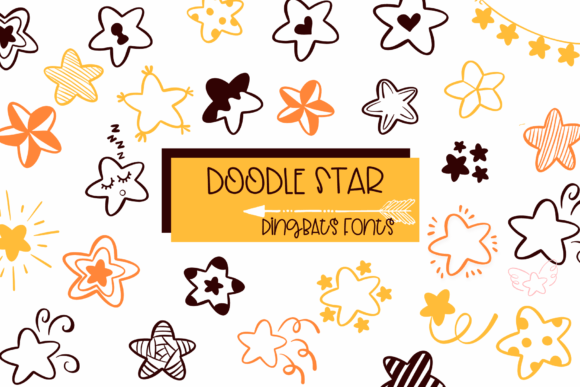
A Spark of Creativity: Unlocking the Magic of Doodle Star Font
Have you ever been stuck in a creative rut, searching for that one thing to bring your project to life? Maybe it’s a font that screams ‘fun,’ a design element that shines bright, or a dash of whimsy that sets your work apart. For designers, finding that perfect element can be the difference between an okay project and an amazing one.
Enter Doodle Star Font, a delightful dingbat font that’s packed with adorable star designs. Each character is a charming star shape, waiting to be used to add a playful touch to your projects. Whether you’re working on a children’s book, a greeting card, or a website, Doodle Star Font is the perfect way to inject some personality and fun into your work.
Doodle Star Font Key Features
- Size: The font family includes a range of weights from Thin to Black, providing flexibility for designers.
- Resolution: Optimized for high-resolution displays, ensuring crisp and clear text rendering.
- Unique Characteristics: Hand-drawn, whimsical design elements and subtle texture, adding a touch of personality to digital and print materials.
- Script and Language Support: Supports a wide range of languages, including Latin, Cyrillic, and Greek scripts.
- Kerning and Ligatures: Precise kerning and carefully crafted ligatures enhance the overall aesthetic and readability of the font.
Doodle Star Font Review
Overall, I think the Doodle Star Font is a cute and playful addition to any design project. It’s perfect for adding a whimsical touch to children’s books, greeting cards, or social media graphics. ✨
The font’s versatility is one of its strongest points. It comes in a range of styles, from bold and chunky to delicate and cursive, making it suitable for a variety of applications. ✨
- Wide range of styles to choose from
- Perfect for adding a playful touch to designs
- Works well in both digital and print formats
While the Doodle Star Font is a great choice for many projects, there are some limitations to be aware of. ⚠️
- Not ideal for professional or formal designs
- Can be difficult to read in small sizes or at a distance
- Lack of support for certain languages or characters
In conclusion, I think the Doodle Star Font is a fun and creative addition to any design project. While it may not be the best choice for every situation, it’s a great option for adding a playful touch to your designs. With a little creativity and experimentation, you can achieve some amazing results with this font. ✨
The Doodle Star Font is perfect for creating whimsical, hand-drawn designs. Use it for:
- Children’s party invitations
- Wedding stationery
- Quirky social media posts
- DIY crafts and art projects
Remember to pair the Doodle Star Font with complementary colors and textures to create a visually appealing design.
Alternatives to Doodle Star Font
Great Vibes Font is a modern, cursive script font that is ideal for creative projects, invitations, and branding materials. It has a whimsical feel that can add a touch of personality to any design. Compared to Doodle Star Font, Great Vibes Font has a more refined and elegant look, making it suitable for a wider range of applications.
Carolyna Pro Font is a playful, handwritten font that is perfect for adding a touch of whimsy to your designs. It’s ideal for use in social media graphics, posters, and other marketing materials where a fun and casual tone is desired. Compared to Doodle Star Font, Carolyna Pro Font has a more relaxed and informal feel, making it suitable for a younger audience.
Alex Brush Font is a elegant, handwritten font that is ideal for use in luxury branding, weddings, and other high-end designs. It has a sophisticated feel that can add a touch of glamour to any project. Compared to Doodle Star Font, Alex Brush Font has a more refined and polished look, making it suitable for a more mature audience.